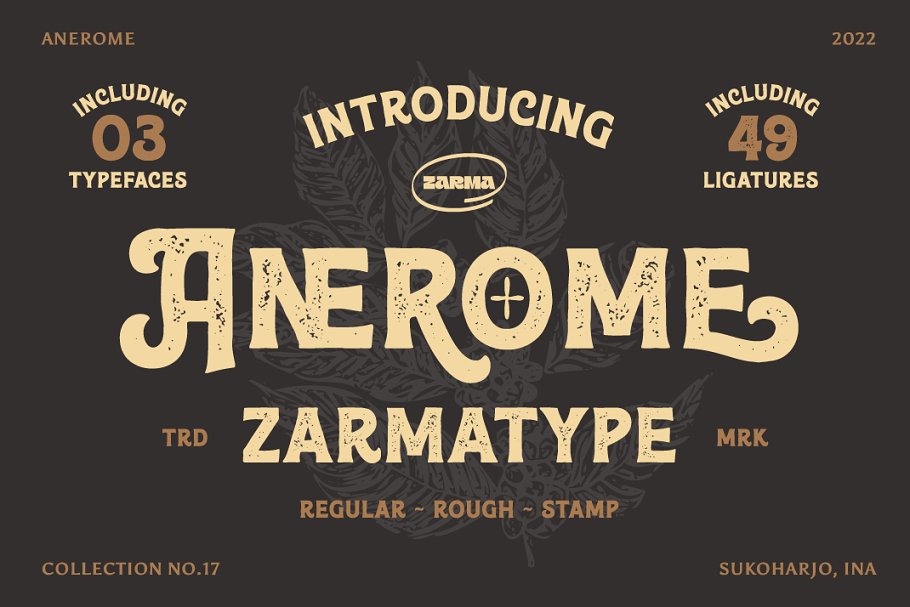
Looking for the perfect font to elevate your vintage design aesthetic? Look no further than Anerome, the best font for rustic type. Created by Zarma Type, Anerome is a vintage display typeface that will transport you to the good old days with its authentic vintage look.
Anerome is not your average font. It comes packed with over 300 glyphs containing stylistic alternates and discretionary ligature characters, allowing you to add an extra touch of personality and creativity to your designs. The font family includes three unique styles: Anerome Regular, Anerome Rough, and Anerome Stamped, giving you the flexibility to choose the perfect style for your project.
This versatile serif font is perfect for any graphic design project, from branding materials to print, business cards, logos, posters, t-shirts, quotes, and more. With Anerome, you can easily create a timeless design that stands out from the crowd.